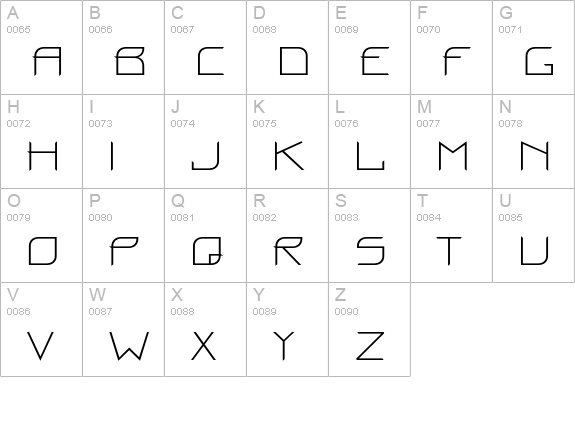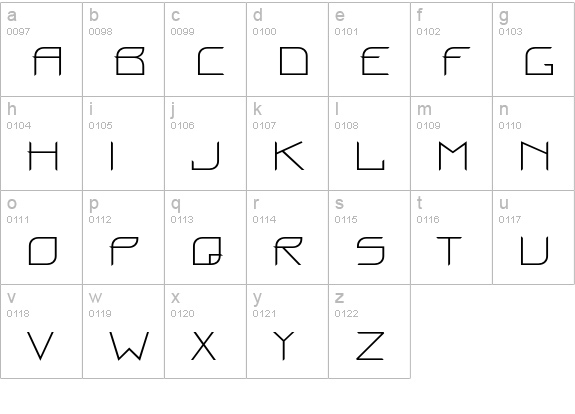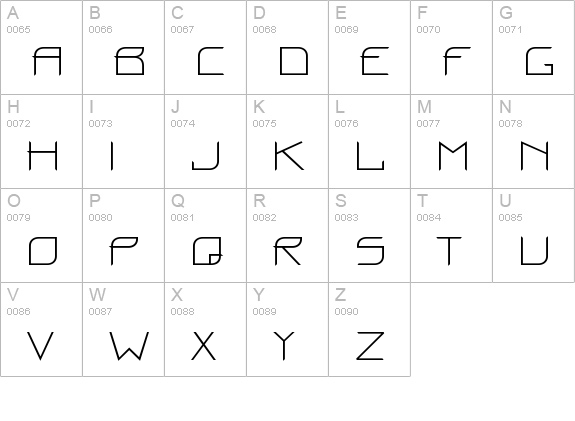
PT Proun Cyrillic Font Details
PT Proun Cyrillic font is a stunning typeface that effortlessly combines modern elegance with classic sophistication. Its sleek, stylish design is perfect for a wide range of projects, from branding to editorial design. The clean lines and sharp angles of this font make it a versatile choice for both print and digital applications. What sets PT Proun Cyrillic font apart is its unique blend of contemporary flair and timeless grace. The Cyrillic characters add a touch of cultural richness to the overall aesthetic, making this font a standout choice for designers looking to make a statement. Best of all, PT Proun Cyrillic font is available for free download at FontsMarket.com. This means you can easily add this beautiful typeface to your font library without any cost. Don't miss out on the opportunity to elevate your designs with the sophisticated charm of PT Proun Cyrillic font. Download it today and let your creativity soar.